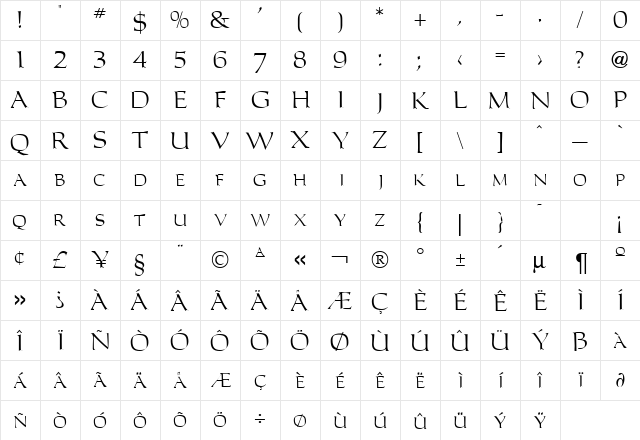
Caroller DB Regular
Design Context for Caroller DB Typeface
Caroller DB is a composed and adaptable typeface that performs quietly and consistently across a wide range of design contexts.